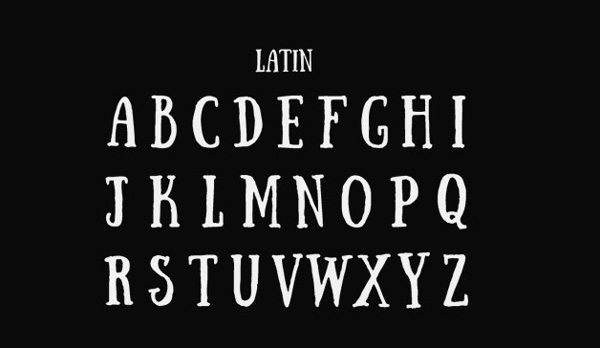
Sunday Font
The Font is a vintage style hand lettering font.You can use it for your logos,posters etc. A little story behind this Anastasia font: “I always liked the illustration and the lettering, but they were both ‘forbidden fruits’ to me. I never thought that I would ever create an illustration or letters.  The result of my practice made me very happy, so I decided to share it! “